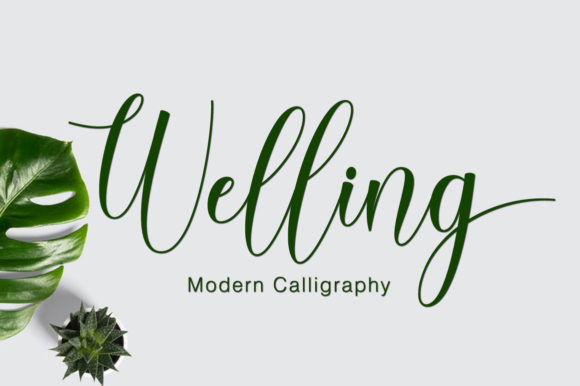
About Welling Font
Welling is a delicate and flowing script font. It is PUA encoded which means you can access all of the glyphs and swashes with ease! Fall for its ravishing style and use it to create gorgeous designs.